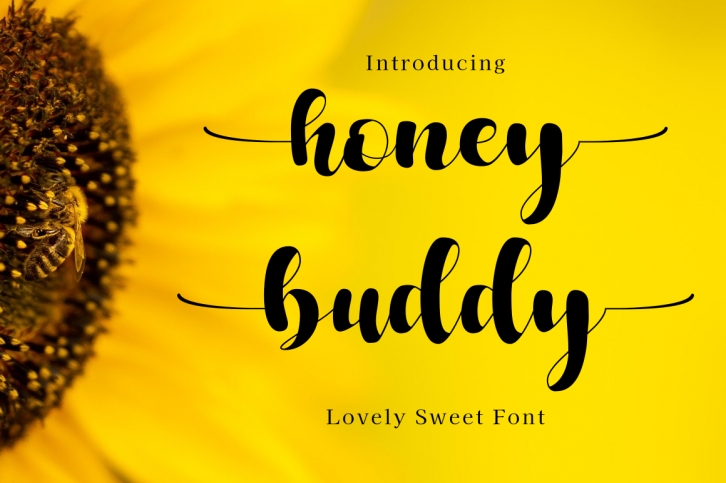
Honey Buddy is a chic and beautiful handwritten font with an incredibly authentic feel. This font is PUA encoded which means you can access all of the glyphs and swashes with ease!Â